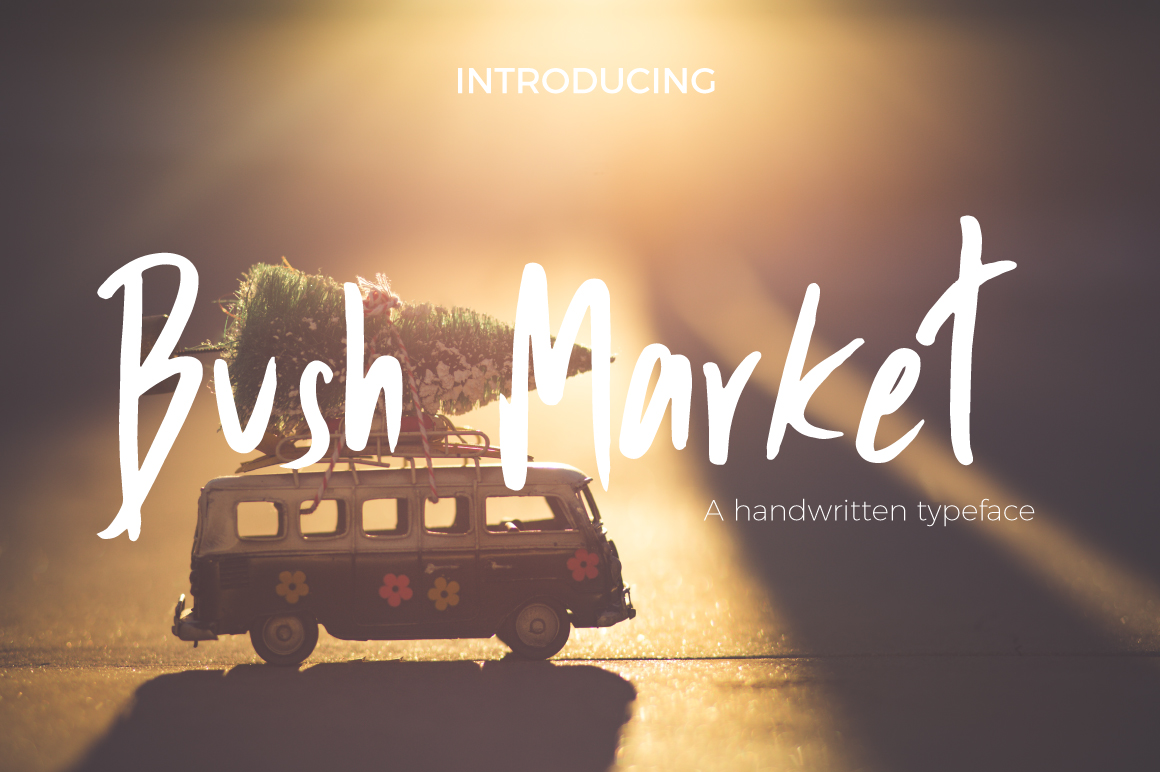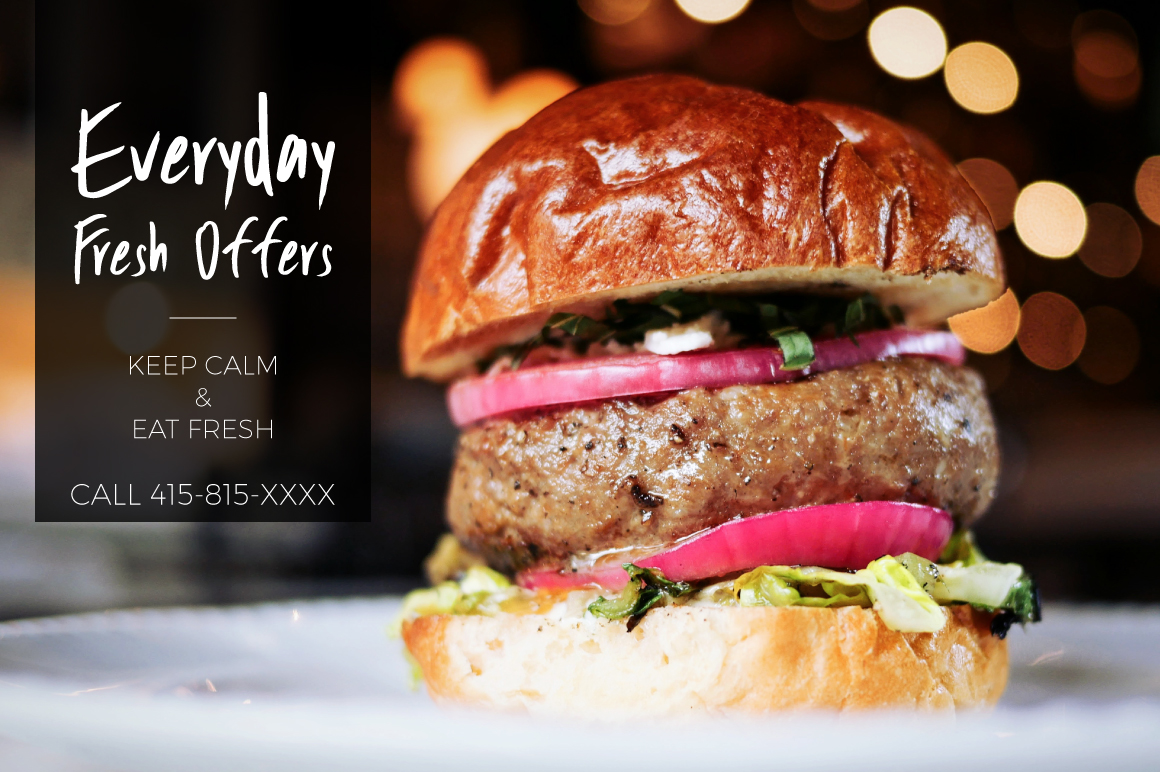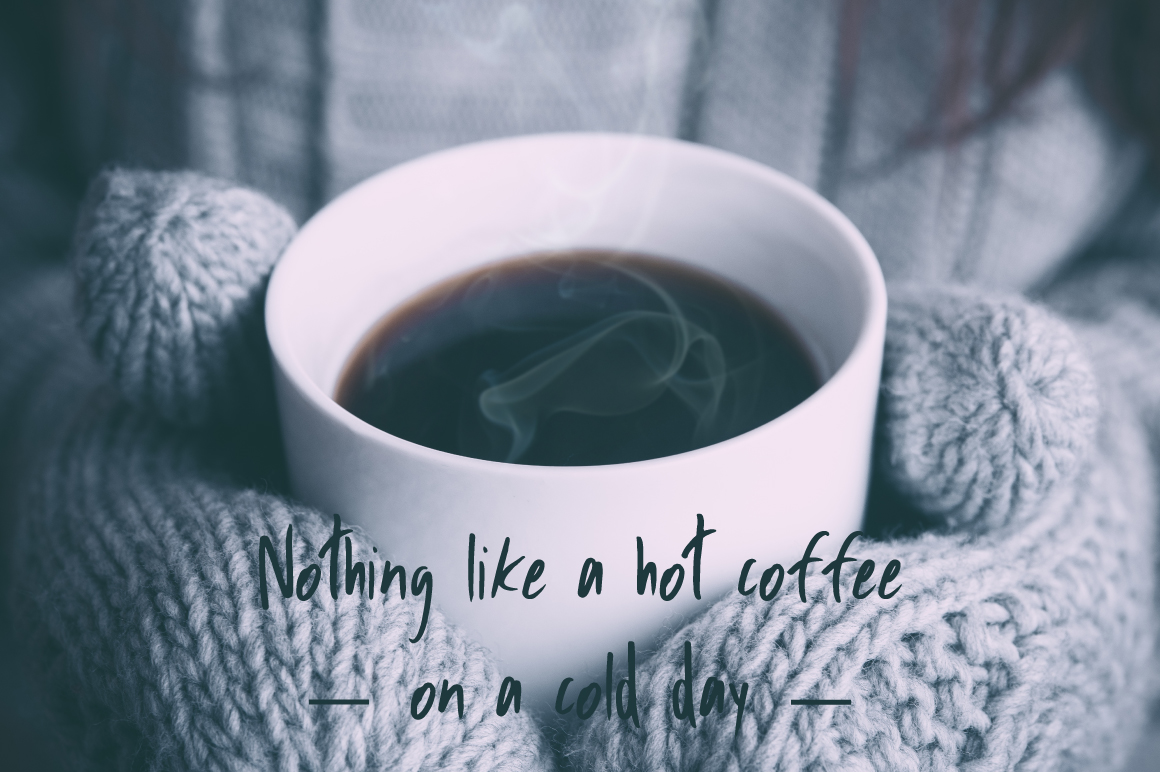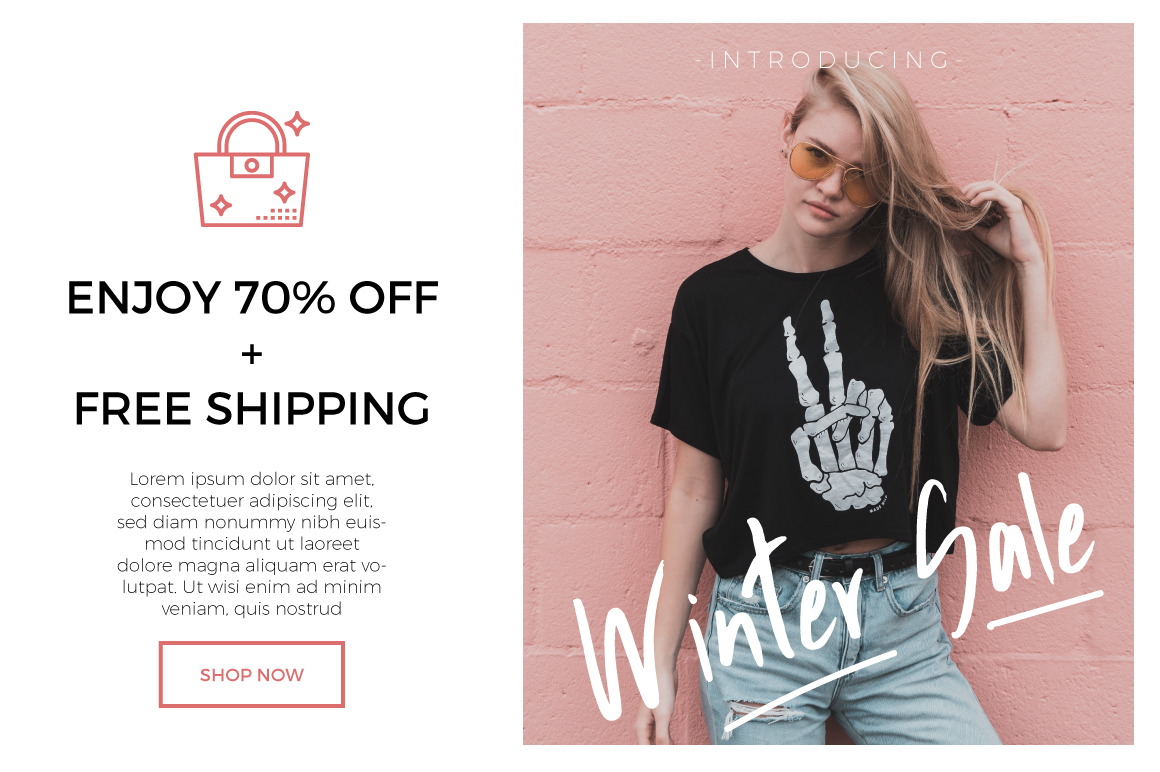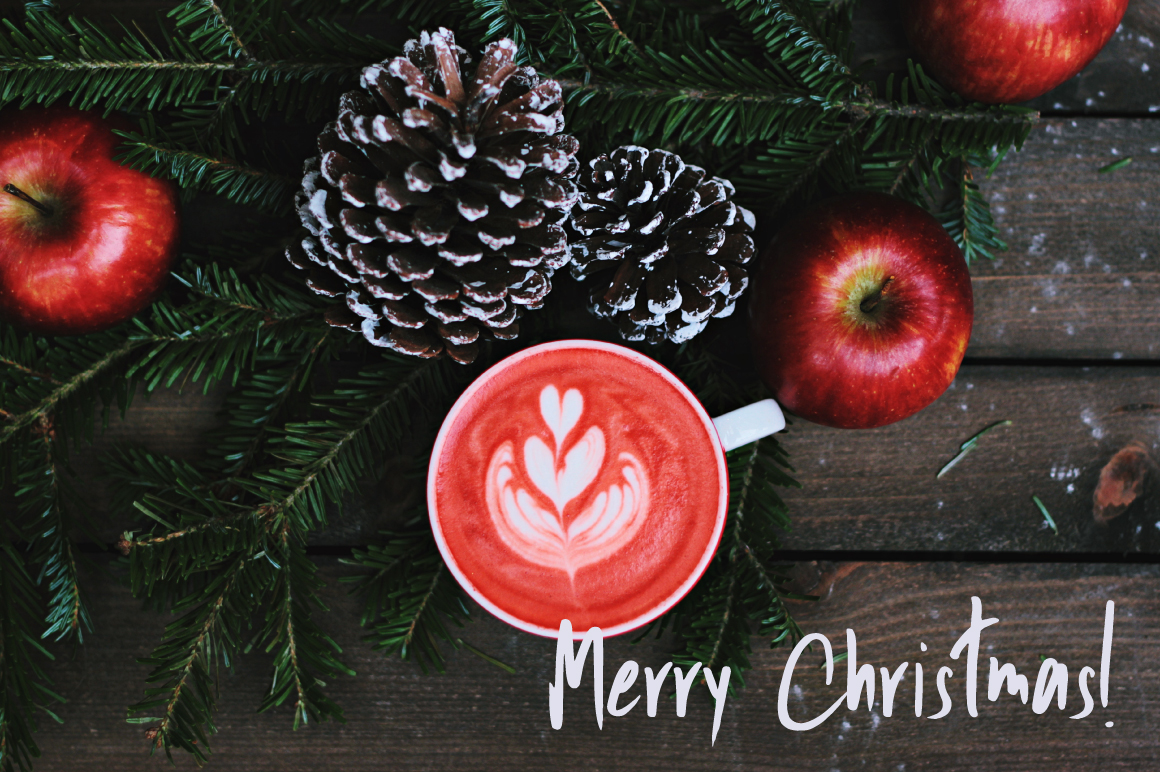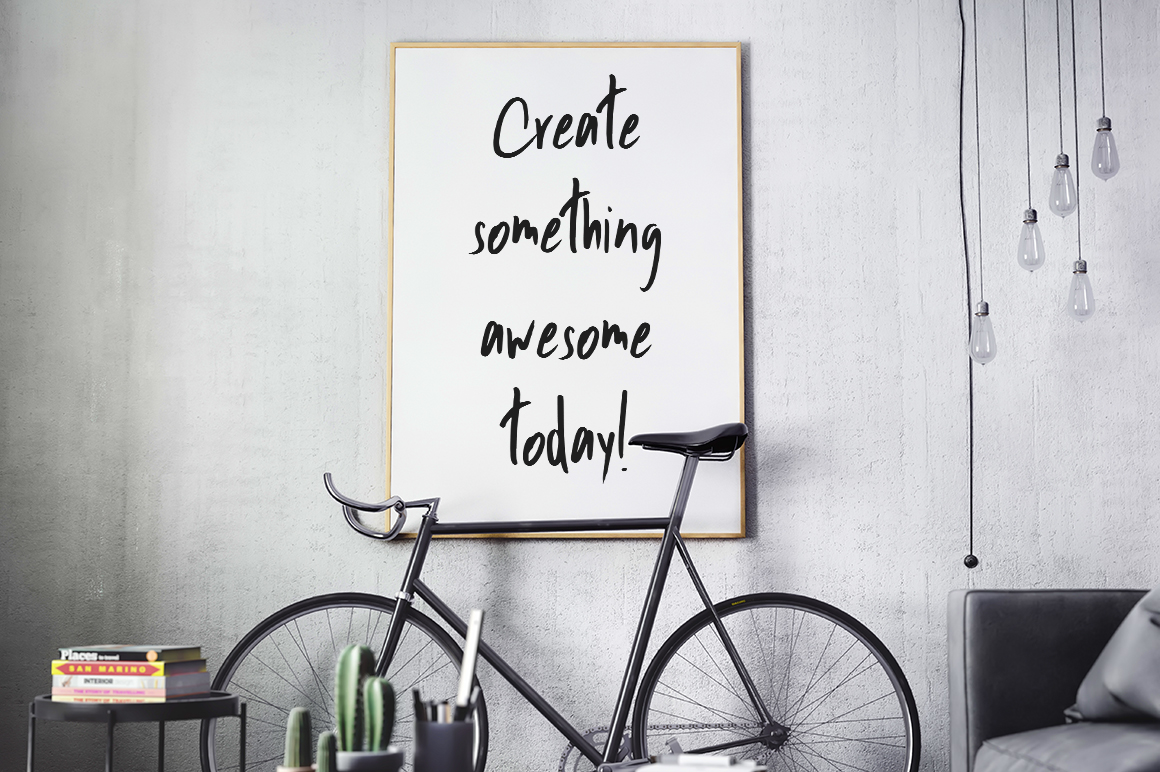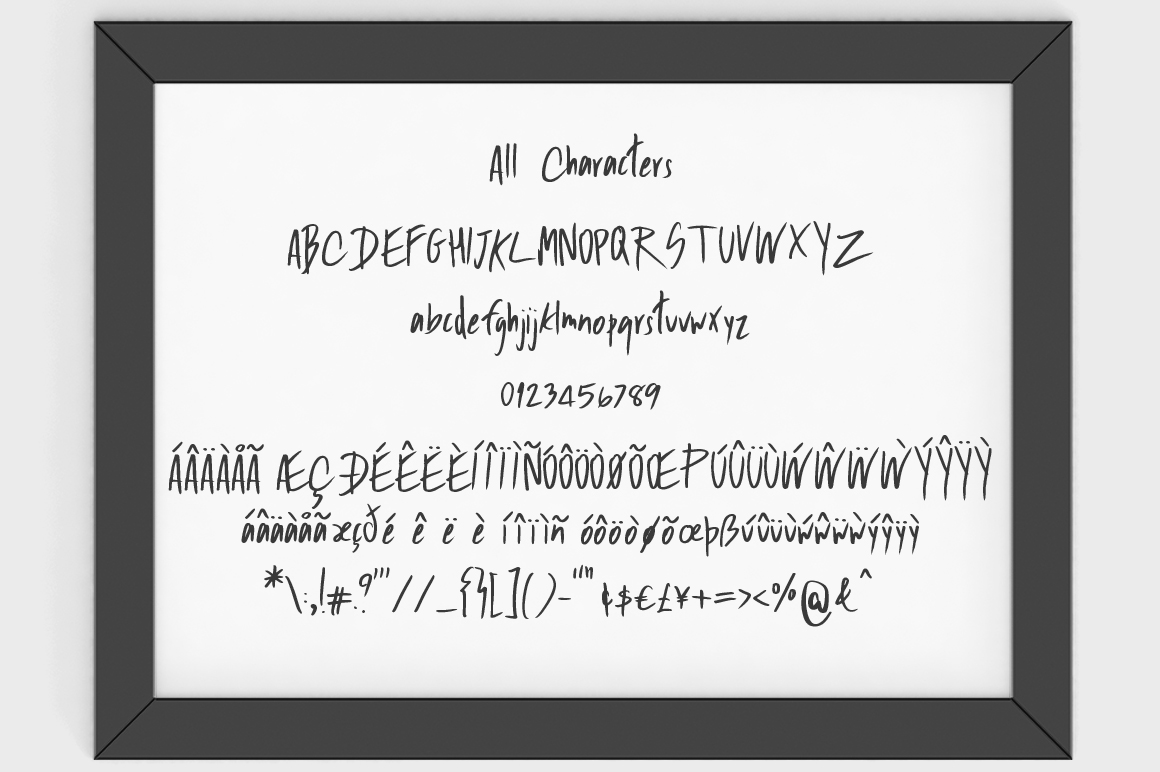
Bush Market Script Font
About Bush Market Script Font
The Bush Market Script is a handwritten typeface.
It has been designed to be expressive and has a rough exterior which will leave an impact.